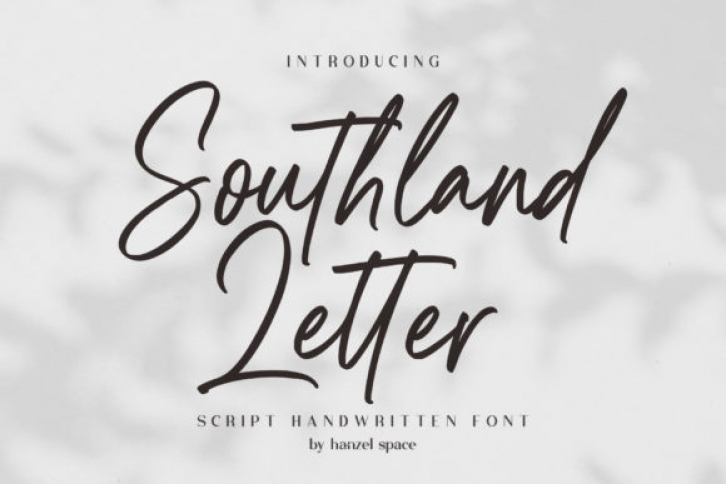
Southland Letter is a lovely and timeless handwritten font. It is the best choice for creating eye catching logos, branding and quotes. Every letter has a unique and beautiful touch, which will make your design come alive!